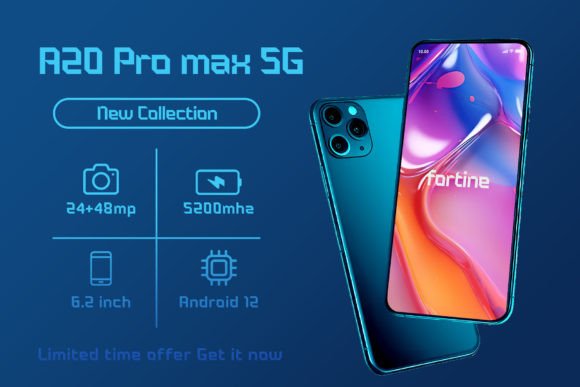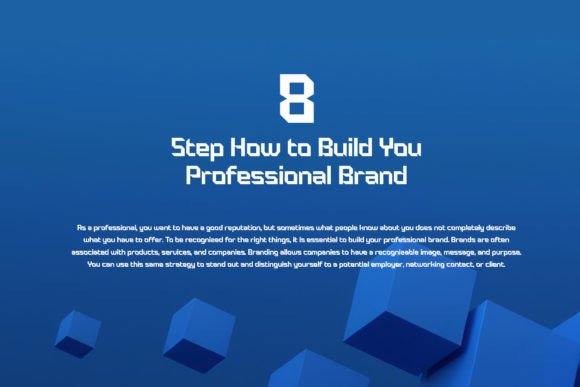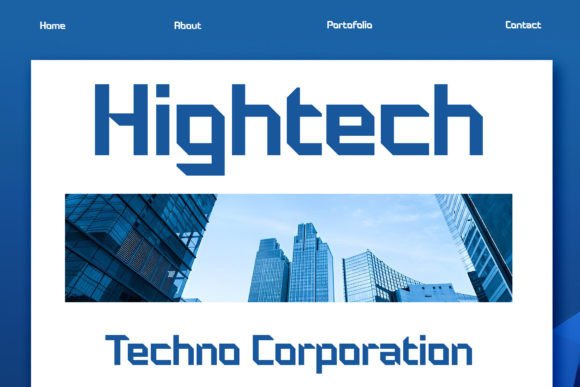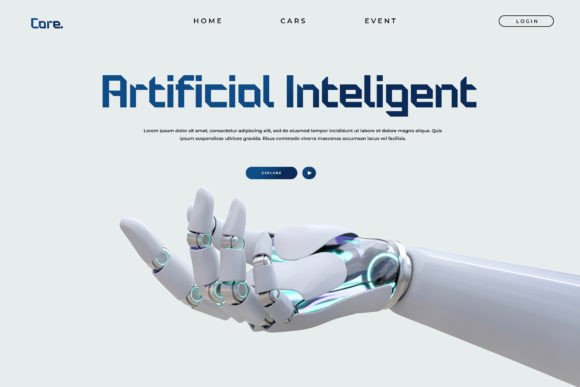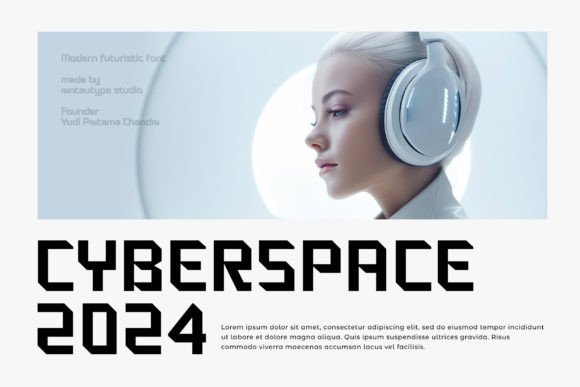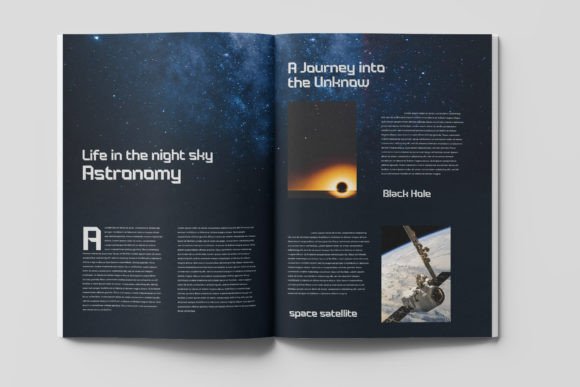
Introducing Fortine Font: A Futuristic Typeface with a Retro Twist
Are you tired of using the same old fonts for your design projects? Look no further than Fortine Font, a futuristic typeface created by the talented team at Rantautype Studio. Inspired by the sleek lines and unique form of a cube, Fortine is the perfect choice for designers and crafters looking to add a touch of retro futurism to their work.
The Inspiration Behind Fortine
Fortine’s design is rooted in the concept of a cube, with clean lines and geometric shapes that evoke a sense of futurism. The font’s creators at Rantautype Studio drew inspiration from the visual design of the future, crafting a unique and distinctive typeface that is sure to turn heads. With its futuristic aesthetic and retro twist, Fortine is the perfect blend of old and new.
Perfect for Creative Endeavors
Fortine Font is a versatile typeface that can be used for a wide range of creative endeavors. Whether you’re working on a logo, advertisement, watermark for photography, stationery, branding project, display and magazine, invitation, corporate brand, product design, label, business project, or anything else, Fortine is the perfect choice. Its unique form and futuristic visual design make it a great fit for projects that require a touch of retro flair.
Key Features of Fortine Font
- Futuristic aesthetic: Fortine’s design is inspired by the visual design of the future, making it perfect for projects that require a cutting-edge look.
- Unique form: The font’s cube-inspired design gives it a distinctive look that sets it apart from other typefaces.
- Retro twist: Fortine’s retro futurism gives it a unique and nostalgic feel that’s perfect for projects that require a touch of vintage flair.
- Versatile: Fortine can be used for a wide range of projects, from logos and advertisements to stationery and product design.
Why Choose Fortine Font?
There are many reasons why Fortine Font is the perfect choice for designers and crafters. Here are just a few:
- Stand out from the crowd: Fortine’s unique design ensures that your project will stand out from the crowd and grab attention.
- Add a touch of retro flair: Fortine’s retro futurism gives it a distinctive look that’s perfect for projects that require a touch of vintage flair.
- Perfect for creative projects: Fortine is the perfect choice for creative projects that require a futuristic and unique typeface.
How to Use Fortine Font
Using Fortine Font is easy. Here are a few tips to get you started:
- Pair it with other fonts: Fortine looks great when paired with other fonts, such as sans-serif or script fonts.
- Experiment with different sizes: Fortine looks great in a variety of sizes, from large headings to small body text.
- Use it for headlines and titles: Fortine’s unique design makes it perfect for headlines and titles that require a touch of futurism.
In conclusion, Fortine Font is a futuristic typeface with a retro twist that’s perfect for designers and crafters looking to add a touch of unique flair to their projects. With its cube-inspired design and futuristic aesthetic, Fortine is the perfect choice for a wide range of creative endeavors. So why wait? Download Fortine Font today and start creating stunning designs that are out of this world!